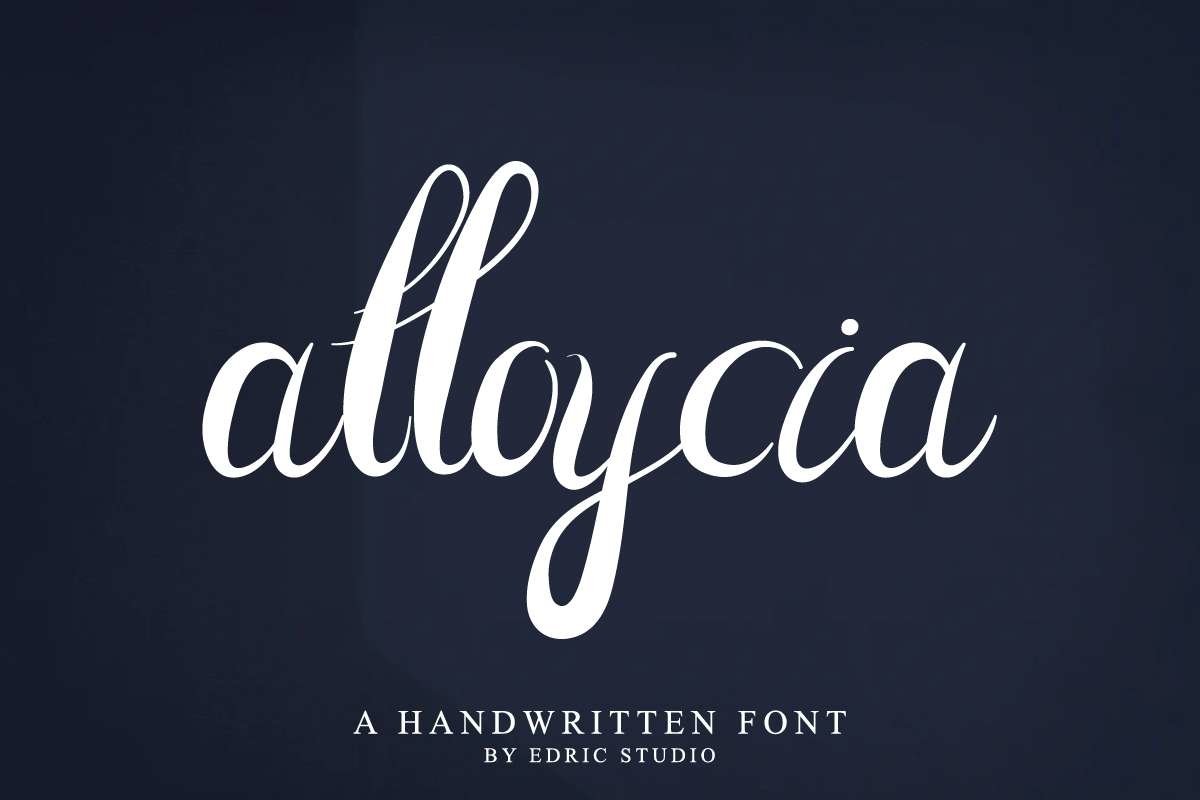
Alloycia
What’s up Everybody?It is us again : EDRIC Studio, Please welcome!The newest font from our lovely artist :  AlloyciaThis is a Calligraphy font, handcrafted from our Studio here in, Indonesia. The artists/designers of this beautiful tyeface is Widiyanti and Sarah Suci.Alloycia Calligraphy Font is an exclusive calligraphy script typeface with brush style. This font has a stunning characters set, perfectly managed with well spaced and kerning. The theme style of this font will elegant,  vintage, stylish, sophisticated and classic brush calligraphic style. You wont find any where else, the font like Alloycia Calligraphy Font.Alloycia Calligraphy Font will be great for any projects including : branding, logo, stationery, business card, signage, flyer, brochure etc. Almost all industries will be match for this typeface: wedding, events, real estate, architect, law firm, florist, gardening, makeup artist, travel, hotel, musician etcHere’s what you’ll get on the zip pack :